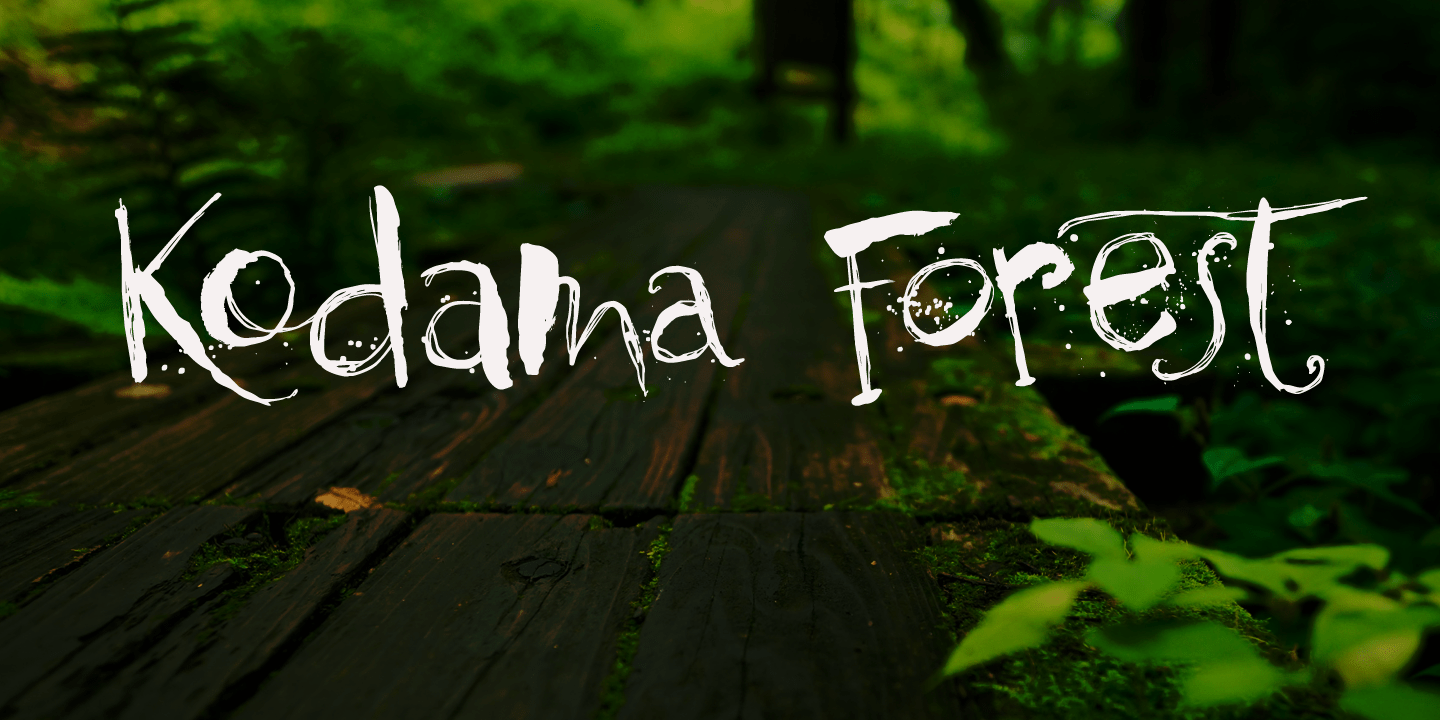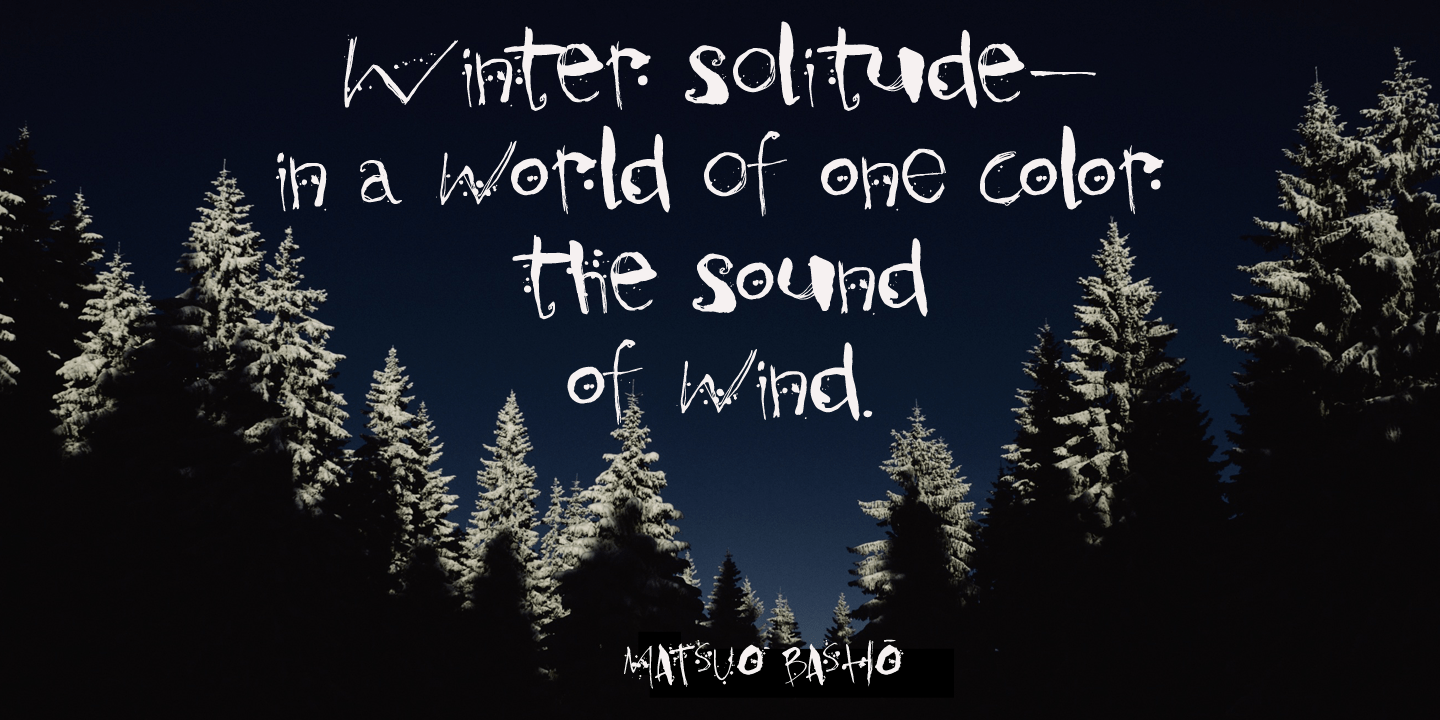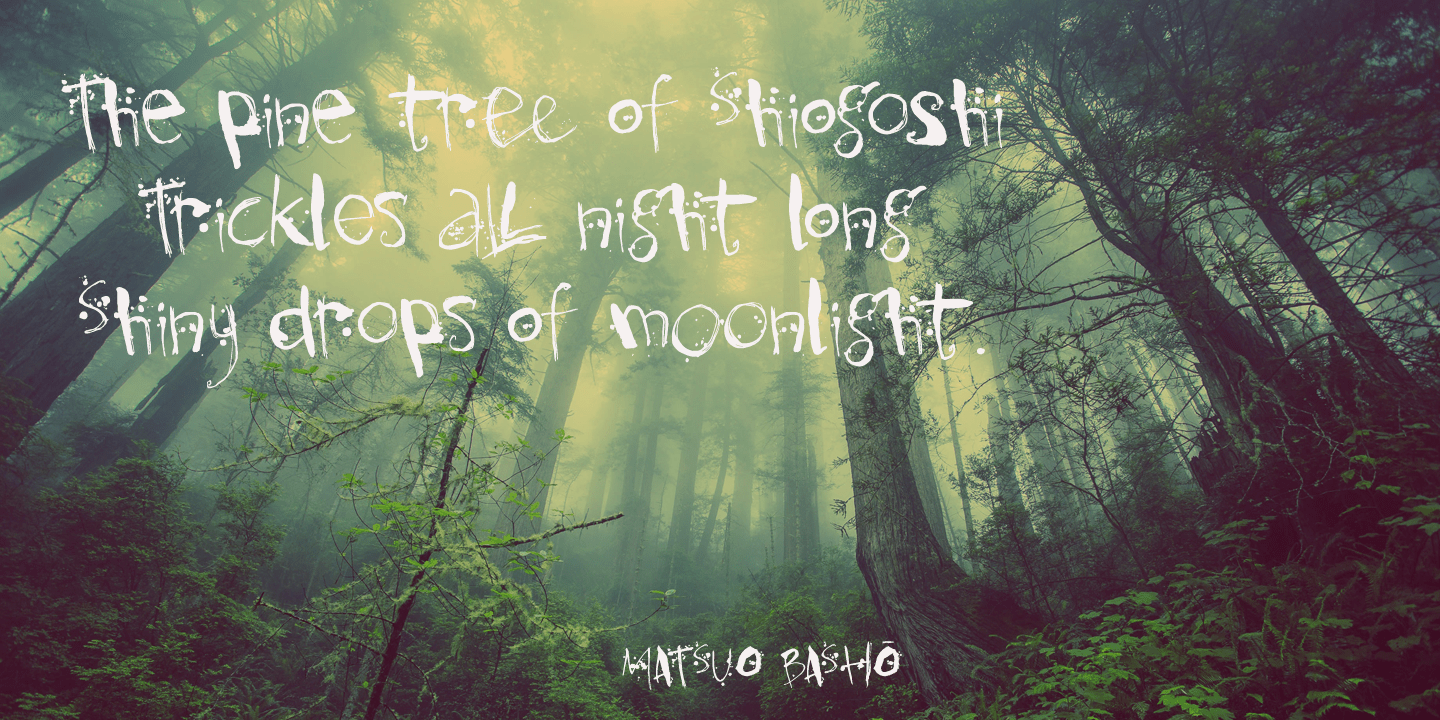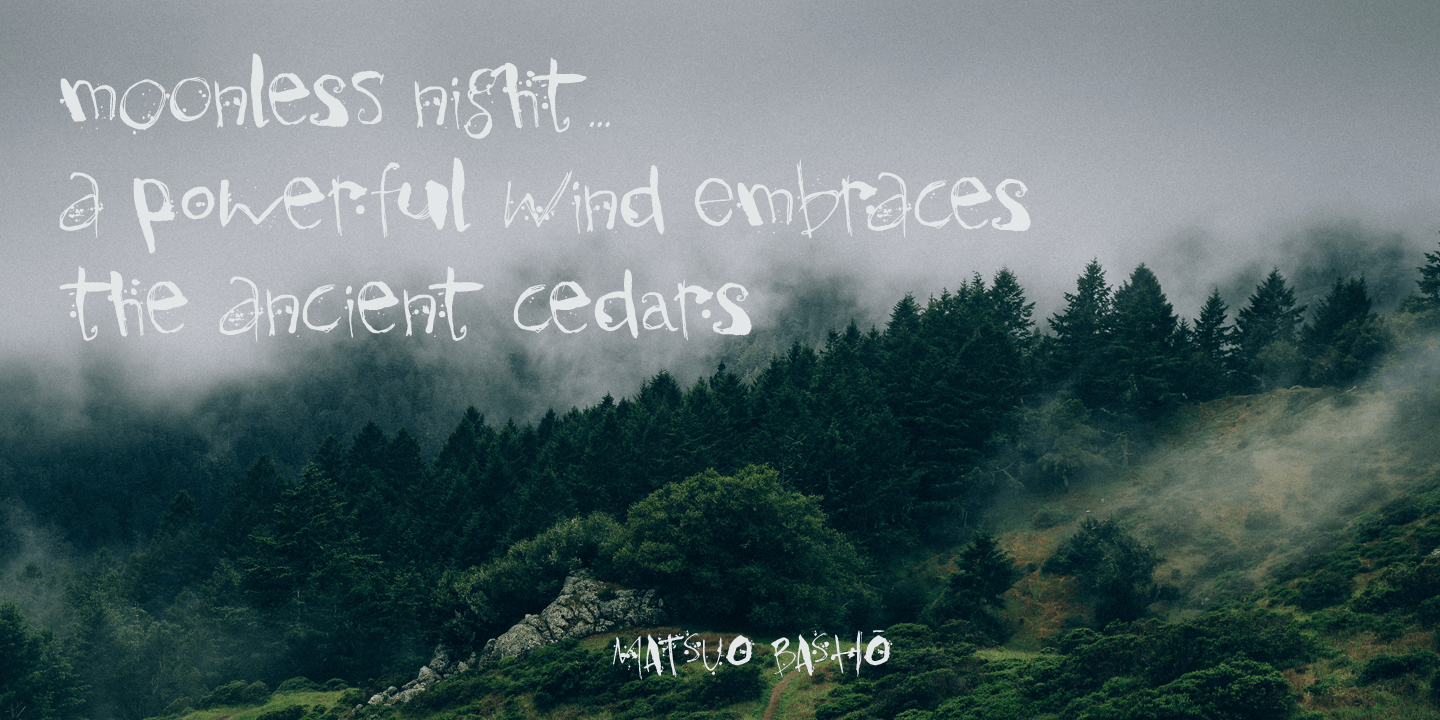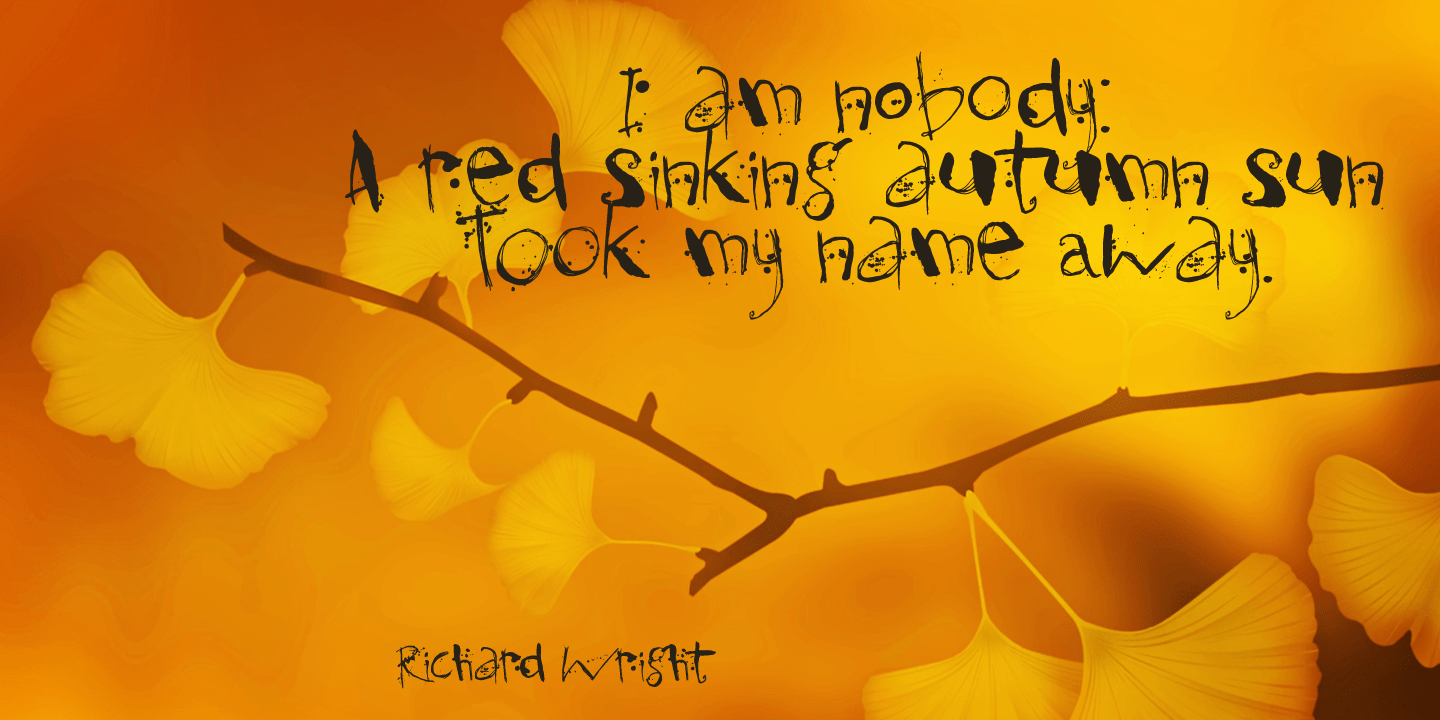
Kodama Forest
Kodama are spirits in Japanese folklore that inhabit trees. The term is also used for trees in which a kodama houses. Kodama Forest is a rough, spikey and inky font, in the style of the great Ralph Steadman. Kodama Forest comes with a bunch of alternates, some interesting ligatures and a lot of splatter. And, of course, all the diacritics you can throw a tree spirit at.